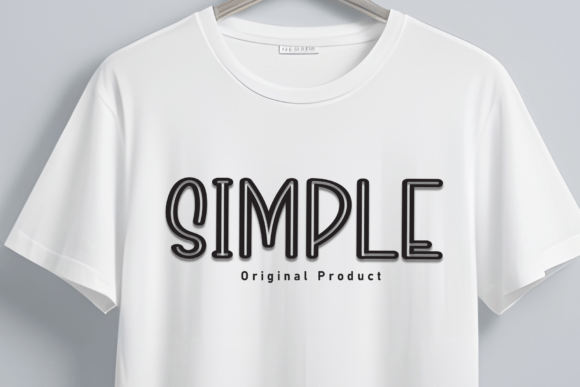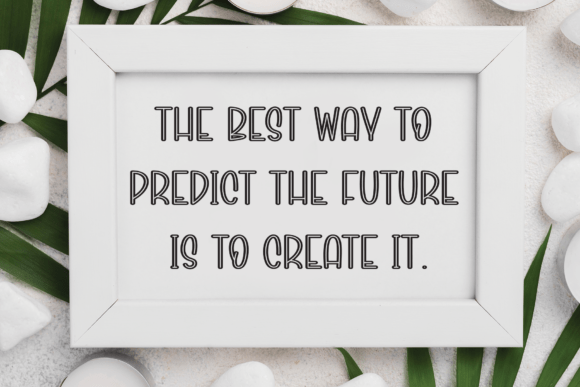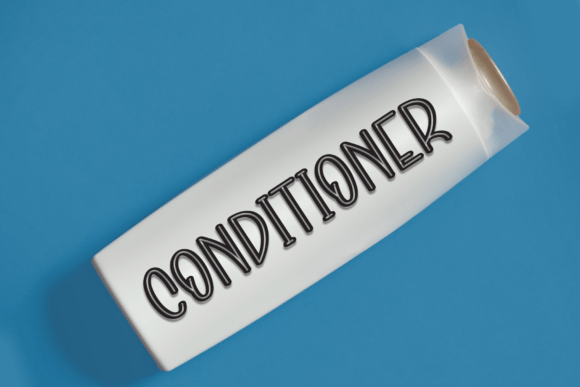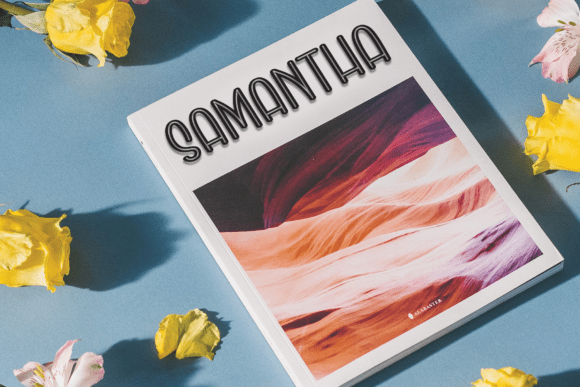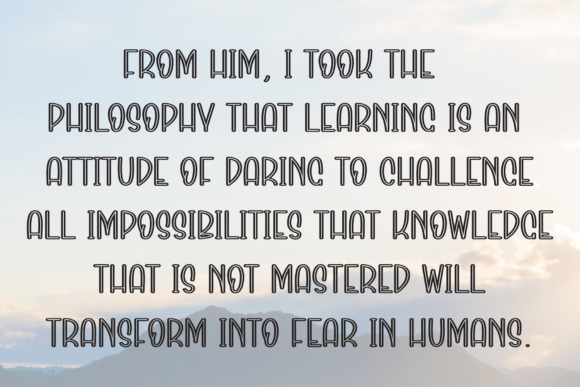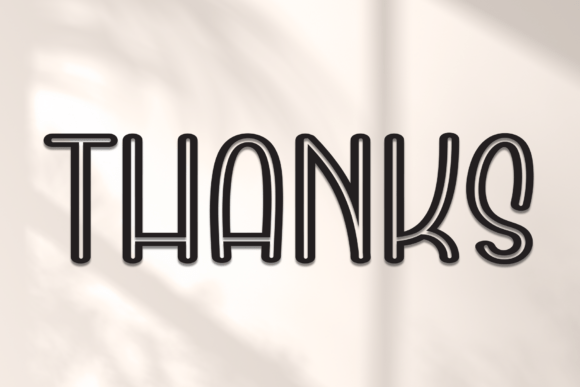
The Charm of Bernard Wacker Font: A Designer’s Delight
A Personal Review: What I Love About Bernard Wacker Font
So, what makes Bernard Wacker Font so special? Here are a few things that I absolutely love:
- ✨ Warm and inviting: This font exudes a sense of warmth and friendliness, making it perfect for projects that require a personal touch.
- ✅ Tactile feel: The subtle imperfections and variations in line width give it a delightfully tactile feel, as if it was written with a pen.
- 🎉 Playful and joyful: The font’s light-hearted and airy quality makes it an excellent choice for designs that need to evoke a sense of playfulness and joy.
While Bernard Wacker Font is an excellent choice for many projects, there are a few things to keep in mind:
- 🤔 Limited use in body text: Due to its decorative nature, this font might not be the best choice for lengthy body text. It’s best used for headings, titles, or short paragraphs.
- ⚠️ Requires attention to spacing: As with any handwritten font, it’s essential to pay attention to letter spacing to ensure it looks its best.
- Explore the font’s OpenType features, such as Stylistic Alternates or Swashes, to add some extra personality to your design.
The Story Behind Bernard Wacker Font
While the origins of Bernard Wacker Font are shrouded in mystery, it’s easy to imagine that it was created by a designer who wanted to bottle the essence of warmth and friendliness in a font. Perhaps they drew inspiration from handwritten letters, diaries, or even street signs. Whatever the story, it’s clear that this font has a special something that makes it stand out.
| Font Name | Bernard Wacker Font |
| Is Bernard Wacker Font suitable for body text? | No, due to its decorative nature, it’s best used for headings, titles, or short paragraphs. |
| Is Bernard Wacker Font available in different languages? | Yes, this font supports multiple languages, making it a great choice for international projects. |